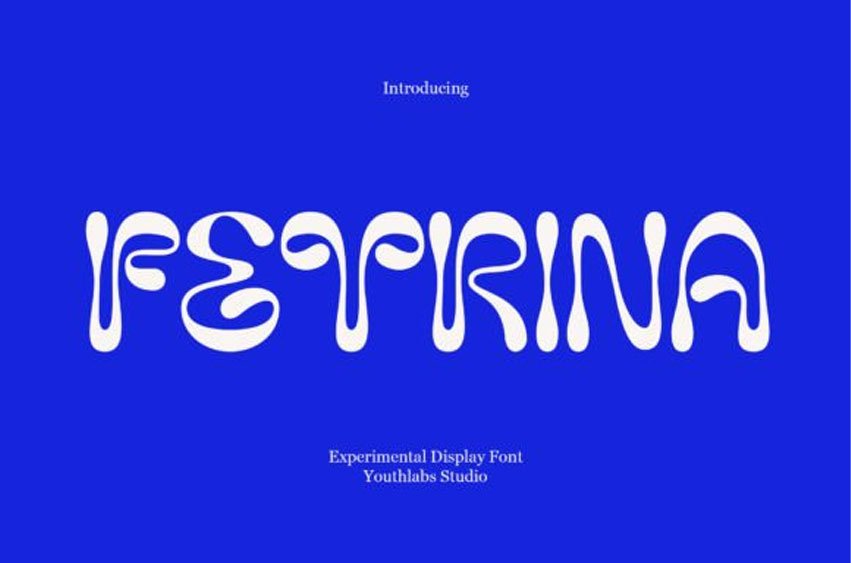
Fetrina Font is inspired by 90s trends, which are made to still look modern. Fetrina uses contrasting circles to emphasize flexibility and flexibility in designing.
Fetrina is suitable for brand headlines, marketing materials, and other design needs. Need to test words in this font? Just type the box below, and see what it looks like